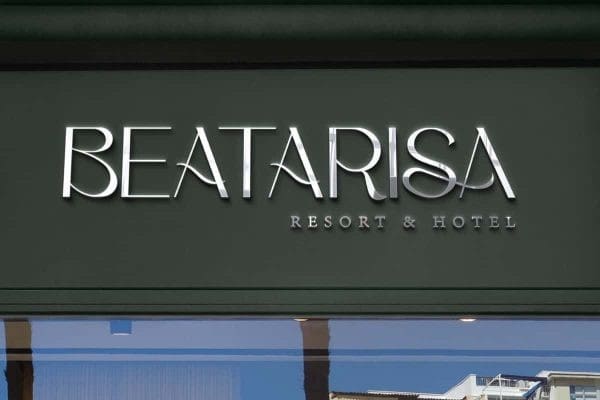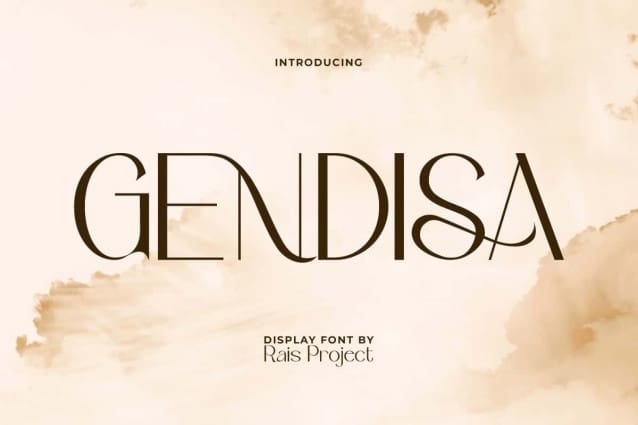
Gendisa Display Font
Gendisa Display Font, is an elegant sans serif display font. This font has thin and firm lines to give expensive feel in your simple design. It will be good for many designs, such as business card, cover, custom design, label, poster, product packaging, signage, stationery, web, and many more!
Gendisa Display Font will amaze you with its fascination, so it is suitable for many industries, such as advertisement, beauty product, event or wedding organizer, fashion, jewelry, real estate, resort, restaurant, spa and salon, etc. It has full set of Uppercase letters, Lowercase letters, Numerals, a large range of Punctuation, and Ligature.